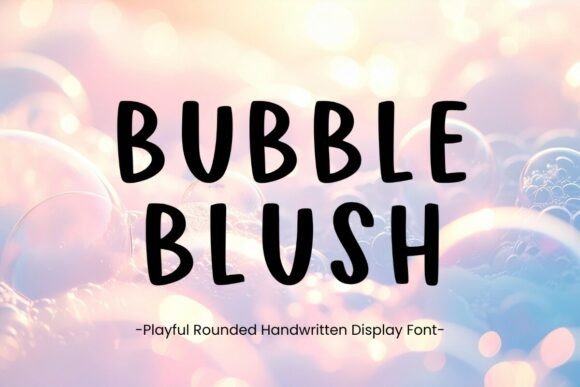
Have you ever stumbled upon a font that makes you smile? For us, that moment came when we discovered the delightful Bubble Blush Font. Its playful, rounded, hand-written display font style is the perfect remedy for designers seeking to add a dash of charm and creativity to their work.
Bubble Blush Font is designed to bring a sense of softness and friendliness to every design, making it a valuable addition to any creative’s toolkit. Whether you’re working on a food packaging project, children’s toy branding, or bright promotional banners, this font is sure to add a pop of sweetness to your designs.
With its bubbly personality and pillowy shapes, the Bubble Blush Font is perfect for brands that want to feel approachable and fun. Its versatility and ease of use make it a must-have for designers looking to create engaging social media content, fun sticker designs, or lively classroom materials.
Bubble Blush Font Key Features
- Unique Characteristics: Bubble Blush Font features a whimsical, hand-drawn design with subtle texture and irregularities, giving it a charming, organic feel.
- Kerning and Ligatures: Bubble Blush Font includes carefully crafted kerning pairs and ligatures to ensure seamless text rendering and a polished appearance.
- Scalability: The font is designed to scale well across various font sizes, from small captions to large headlines, without losing its distinctive charm.
Bubble Blush Font Review
I recently had the chance to work with the Bubble Blush Font, and I must say it’s a unique and eye-catching choice for any design project. ✨ Here are a few things that stood out to me:
- The playful, whimsical feel of the font is perfect for creating a fun and lighthearted atmosphere.
- The font’s soft, rounded edges and subtle texture give it a friendly and approachable vibe.
- The wide range of weights and styles available makes it easy to customize the font to fit your specific design needs.
However, I did encounter a few limitations that might impact its usability in certain situations:
- The font may not be the best choice for projects that require a more formal or professional tone.
- The sheer number of styles and weights can make it difficult to choose the perfect combination for your design.
- The font may not be fully optimized for certain screen resolutions or devices.
Overall, I think the Bubble Blush Font is a great addition to any designer’s toolkit, but it’s essential to use it judiciously and consider the context in which it will be used. With the right project and a clear vision, this font can add a touch of magic to your design. ⚠️ Just be aware of its limitations and be prepared to adjust accordingly.
Getting the Most Out of the Bubble Blush Font
Use the Bubble Blush font for whimsical and playful designs, such as:
– Invitations and party decor
– Children’s book illustrations
– Social media graphics and ads
Remember to pair the Bubble Blush font with complementary fonts and colors to create a visually appealing design.
Alternatives to Bubble Blush Font
Cream Soda Font is a playful, cursive script font that’s perfect for creating a whimsical and feminine feel. It’s ideal for use in invitations, greeting cards, and other design projects that require a touch of elegance and sophistication.
Comparison to Bubble Blush Font: While Bubble Blush Font is more bubbly and childlike, Cream Soda Font is more refined and sophisticated. It’s a great choice for designers who want to create a more mature and elegant look.
Great Vibes Font is a beautiful, handwritten script font that’s perfect for creating a fun and carefree atmosphere. It’s ideal for use in designs that require a sense of adventure and playfulness.
Comparison to Bubble Blush Font: Great Vibes Font is more casual and relaxed than Bubble Blush Font, which makes it a great choice for designers who want to create a more laid-back and effortless look.